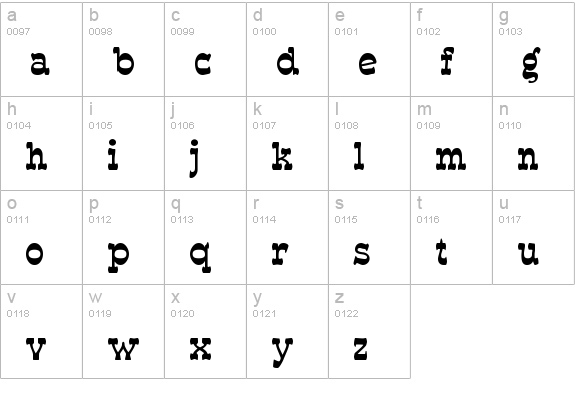
Erkball Bold Font Details
Erkball Bold is a strong, high-contrast variant in the Erkball typeface family \xE2\x80\x94 well suited to headlines, attention-grabbing titles, and strong calls-to-action.
Erkball Bold is a striking and versatile font that exudes strength and modernity. Its bold and angular design makes a bold statement, perfect for headlines, logos, and branding materials. With its clean lines and distinctive character shapes, Erkball Bold commands attention and adds a touch of sophistication to any design project. And the best part? Erkball Bold is available for free download at FontsMarket.com. Embrace the power of this eye-catching font and elevate your designs with its bold and impactful presence. Download Erkball Bold today and make a statement that truly stands out.